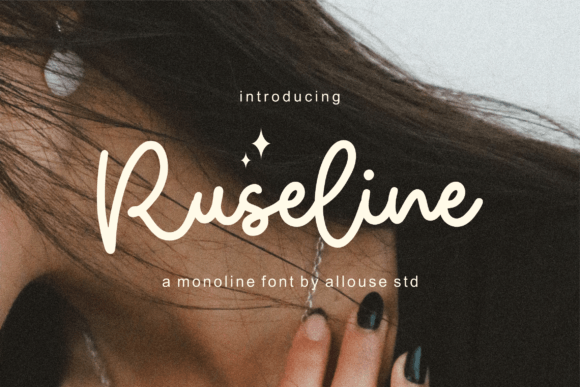
Journey into the realm of visual enchantment with Ruseline Font, the script font that ignites your creativity and captivates your audience. With its effortless flow and graceful curves, Ruseline dances across your designs, leaving a trail of elegance and sophistication.
Crafted by the visionary artists of allouse.studio, Ruseline is a symphony of artistic expression, designed to leave an indelible mark on your projects. Whether you're weaving words into captivating logos, crafting enchanting invitations, or adding a touch of whimsy to your social media posts, Ruseline is your trusted companion.
Unlike ordinary fonts that blend into the background, Ruseline commands attention, demanding to be seen and admired. Its unique characteristics and eye-catching style make it the perfect choice for those who seek distinction and desire to leave a lasting impression.
Ruseline's versatility knows no bounds. It effortlessly adapts to a myriad of design aesthetics, seamlessly integrating into your vision. From the chic and modern to the classic and timeless, Ruseline chameleon-like ability to transform ensures that it will complement your creations flawlessly.
With Ruseline by your side, you'll discover a newfound confidence in your design abilities. Its intuitive nature makes it a joy to use, allowing you to effortlessly create designs that exude professionalism and artistry. Unleash your creativity and watch as Ruseline transforms your ideas into stunning realities.
Don't settle for ordinary fonts that fade into the background. Embrace the extraordinary with Ruseline Font and elevate your designs to new heights. Let your imagination soar as you craft masterpieces that captivate and inspire.